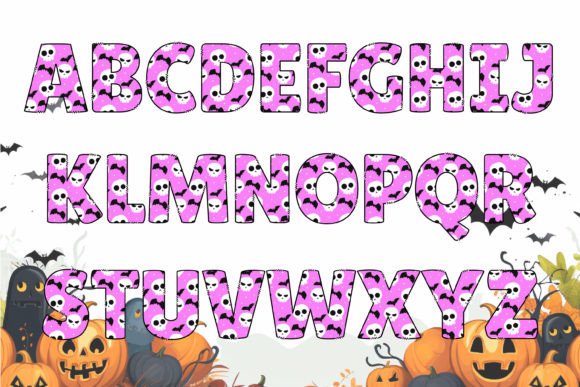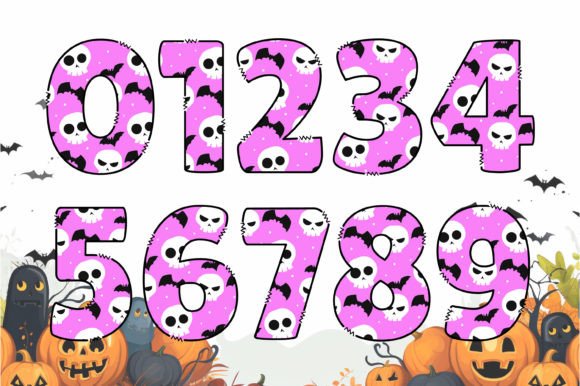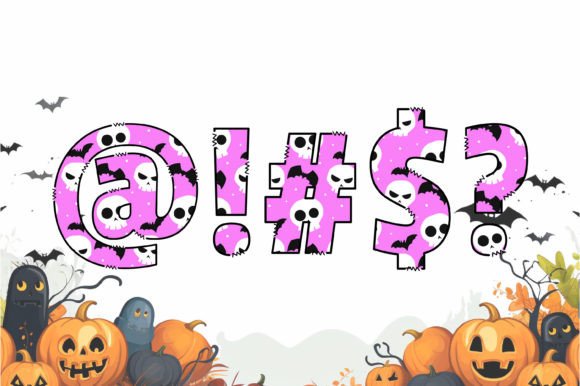
Introduction to Ghoul Gang Font Font
Fonts play a crucial role in design, and the Ghoul Gang Font font is a typeface that brings both character and versatility to any project. Whether you’re working on a branding project, a website, or a print design, the Ghoul Gang Font font offers a unique style that can elevate your work.
Ghoul Gang Font is a color font with a Halloween theme.
Perfect for adding a Halloween touch to product labels and packaging, especially for seasonal items Its vibrant colors, decorative elements, and clear readability make it perfect for apparel, home decor, craft projects, event marketing, educational materials, merchandise, and digital content.
Key Features of Ghoul Gang Font Font
Why Choose Ghoul Gang Font Font?
The Ghoul Gang Font font is more than just a typeface – it’s a design tool that helps you communicate your message with style and clarity. Its unique character set and versatile design make it suitable for a wide range of applications, from elegant invitations to bold headlines.
With its carefully crafted letterforms and balanced proportions, the Ghoul Gang Font font ensures readability and visual appeal across all mediums.
What makes Ghoul Gang Font font special?
The Ghoul Gang Font font stands out with its unique design, exceptional readability, and versatility across various design applications.